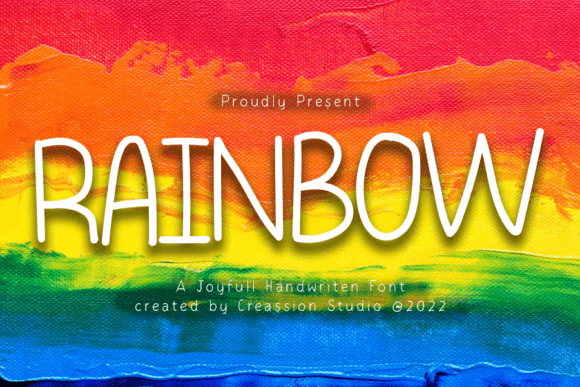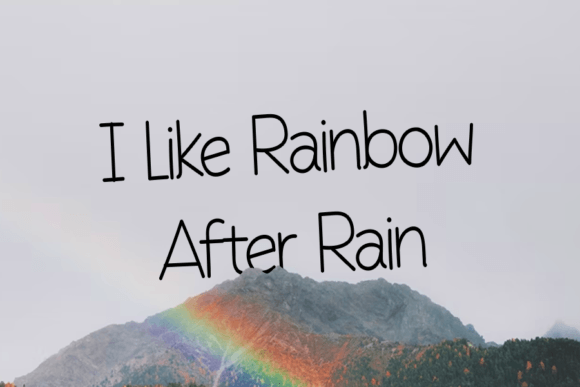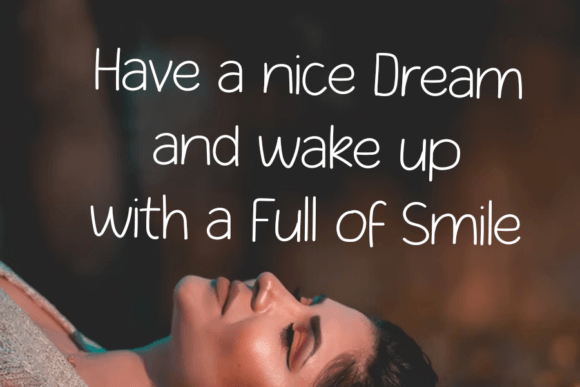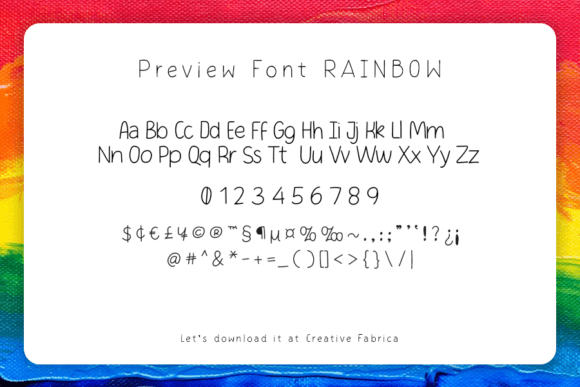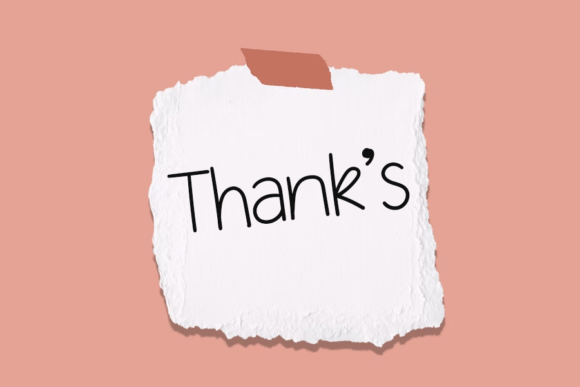
Rainbow Font
About Rainbow Font
RAINBOW is more than just a font; it’s a lovely and sweet handwritten script font crafted to bring a touch of charm to your creative projects. This gentle typeface looks stunning on a variety of design ideas, adding a joyful and romantic touch to each of your endeavors.
The allure of RAINBOW lies in its delicate and handwritten style. The characters flow gracefully along the baseline, creating a visual rhythm that exudes warmth and personality. This font feels like a sweet note written by hand, infusing your designs with a personal and heartfelt touch.
Versatility is one of the standout features of RAINBOW. This font is carefully designed to complement a wide range of projects, making it a delightful choice for anyone seeking to infuse a sense of joy and romance into their designs. Whether you’re working on wedding invitations, greeting cards, social media posts, or any other creative endeavor, RAINBOW adds a special touch.
If you’re looking to enhance the emotional connection in your designs, RAINBOW is the perfect choice. Its handwritten nature creates a unique and authentic feel, making it ideal for projects that require a personal and heartfelt vibe. This font is about capturing the essence of joy and romance and translating it into a visual language.
RAINBOW doesn’t limit itself to specific design categories; instead, it adapts to your creative vision. Whether you’re designing invitations, crafting a love note, or creating any project that demands a touch of sweetness, RAINBOW is crafted to elevate your text with its charming and romantic aesthetic.
In the world of fonts, RAINBOW stands out as a celebration of joy and romance. It’s not just about letters; it’s about creating an emotional connection with your audience. So, whether you’re a designer, planning a special event, or someone embarking on a creative project, let RAINBOW be your go-to font for infusing sweetness and romance into every design.